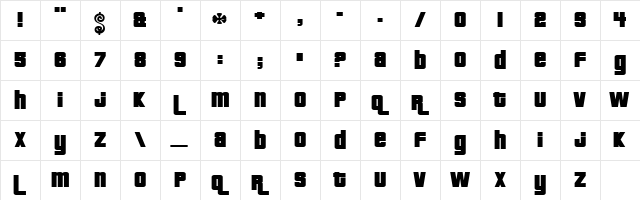
Pricedown Regular
Design Context for Pricedown Typeface
Pricedown is a composed and adaptable typeface that performs quietly and consistently across a wide range of design contexts.